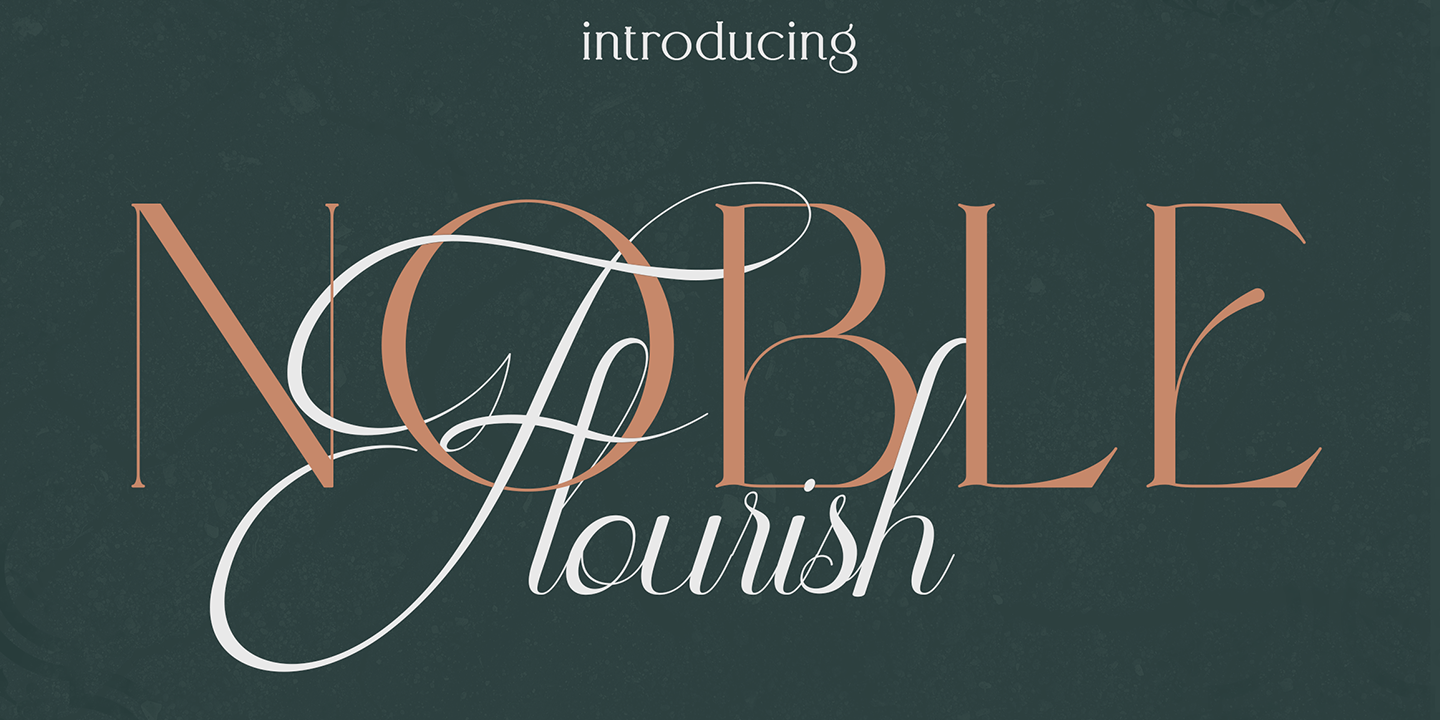
Noble Flourish Font is perfect for elegant design projects including luxury wedding invitations, premium brand logos, high-end restaurant menus, sophisticated business cards, formal certificates, upscale product packaging, classic book covers, royal event programs, aristocratic monograms, and distinguished corporate materials that require refined typographic excellence.
What makes Noble Flourish Font so exciting is its exquisite combination of classical elegance and ornate decorative elements that evoke timeless sophistication and regal grandeur. This magnificent typeface features intricate flourishes, graceful swashes, and refined character details that transform ordinary text into stunning visual statements, making it the perfect choice for projects demanding luxury, prestige, and aristocratic appeal.
Noble Flourish Font typically comes in comprehensive font families including regular, bold, light, and ornamental weights, along with decorative alternates, stylistic sets, elegant ligatures, and ornate initial capitals, providing designers with extensive options to create hierarchical layouts and sophisticated typographic compositions.
This distinguished Noble Flourish Font Free Download represents the pinnacle of elegant typography, offering designers an exceptional tool for creating luxurious and memorable visual experiences. Whether you're developing premium branding, formal invitations, or sophisticated marketing materials, this font delivers unparalleled elegance while maintaining excellent readability. The ornate flourishes and classical proportions make it particularly valuable for high-end projects seeking to convey prestige, tradition, and refined taste through typography that speaks to discerning audiences who appreciate timeless beauty and sophisticated design aesthetics.